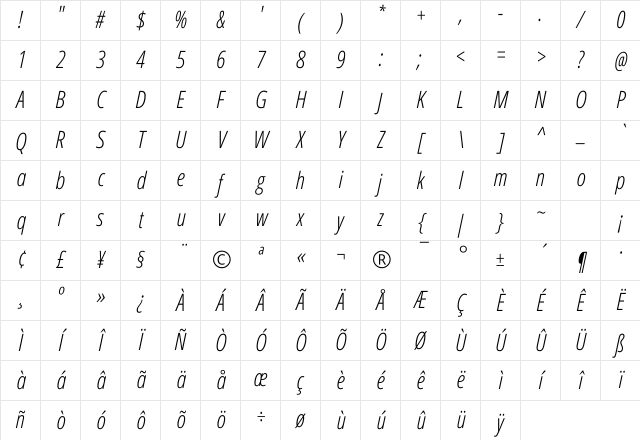
Open Sans Hebrew Condensed Light Italic
Foundry: Ascender Corporation, Yanek Iontef
Complete Open Sans Hebrew Condensed Light Italic glyph index. Displaying only characters natively supported by Open Sans Hebrew Condensed Light Italic font.
Design Context for Open Sans Hebrew Condensed Light
Open Sans Hebrew Condensed Light is a composed and adaptable typeface that performs quietly and consistently across a wide range of design contexts. The slanted form adds forward momentum and visual energy. Its slender proportions lend an understated elegance to any composition. Its narrow stance lets it pack a punch even in space-constrained designs.
Pro Tip: Use Open Sans Hebrew Condensed Light for emphasis, pull quotes, and subheadings where its slanted energy can add rhythm to the layout.
Who designed the Open Sans Hebrew Condensed Light Italic font?
This font was published by Ascender Corporation, Yanek Iontef. Check the technical specs section for copyright and designer details.